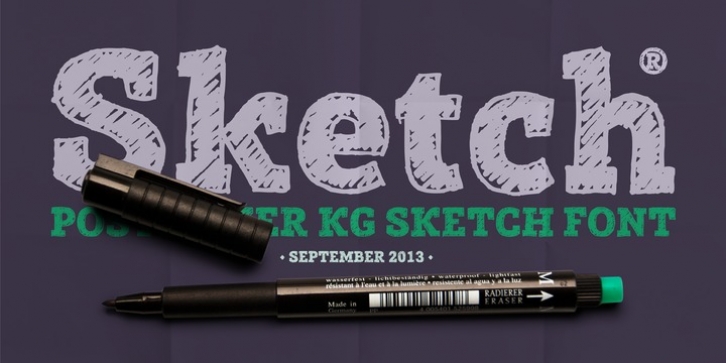
Publisher: Posterizer KG
Posterizer KG Sketch is basically a drawn version of Egyptian Slab Serif font Posterizer KG. Posterizer KG Sketch, is useful for some themes like music, painting, party, food, nature, kids... and many other funny and creative things.
Contains all the Latin and Cyrillic glyphs.